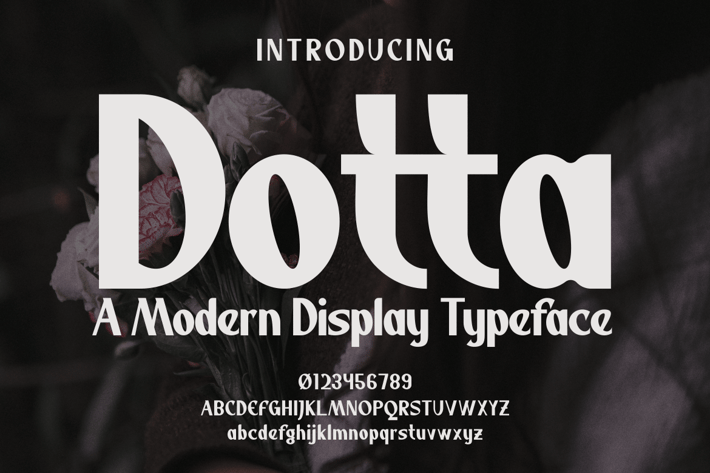
Dotta Font
Introducing our new product Dotta Font - Modern Font
Dotta Font - Modern Font is a bold and authentic display font. The font is suitable for any branding project like logo, t-shirt printing, product, and many more. outstanding in a wide range of contexts.